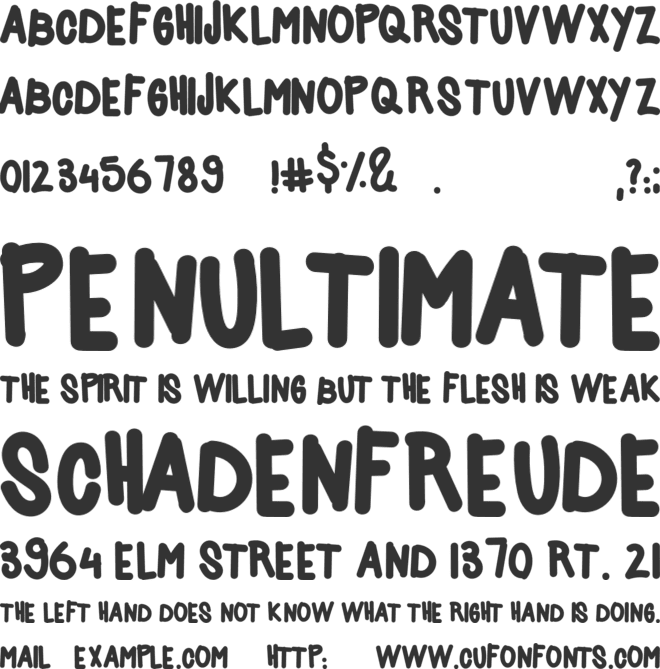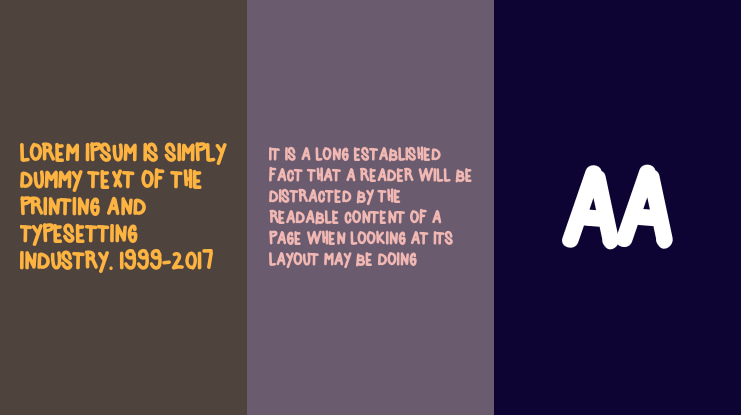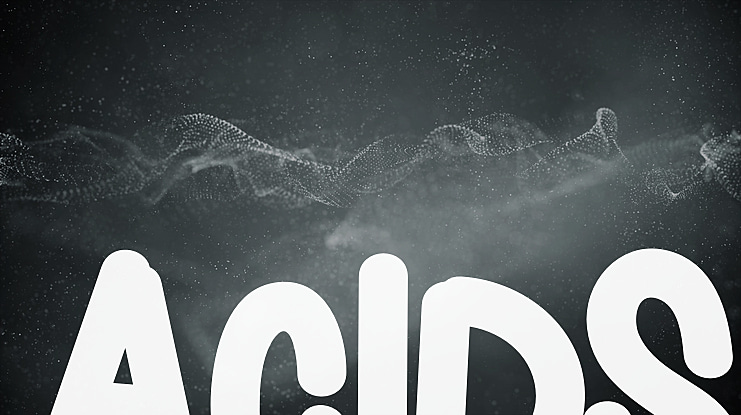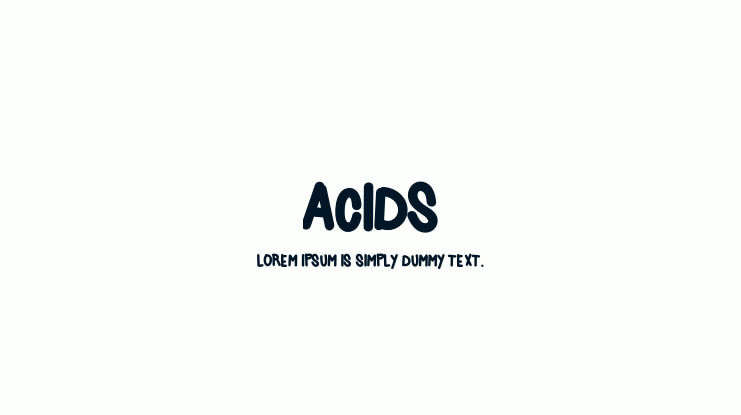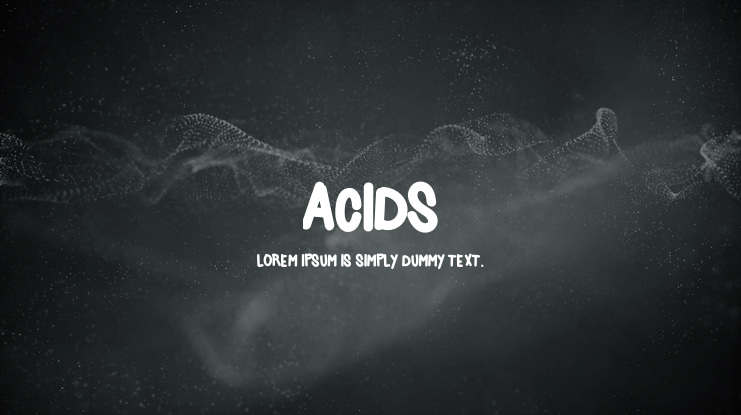
Acids Font
Leonard Posavec
This is Handrawn Brush Font, Calligraphy style, Suitable for design, element design, wedding, event, t-shirt, logo, badges, sticker, and awesome work about summer.